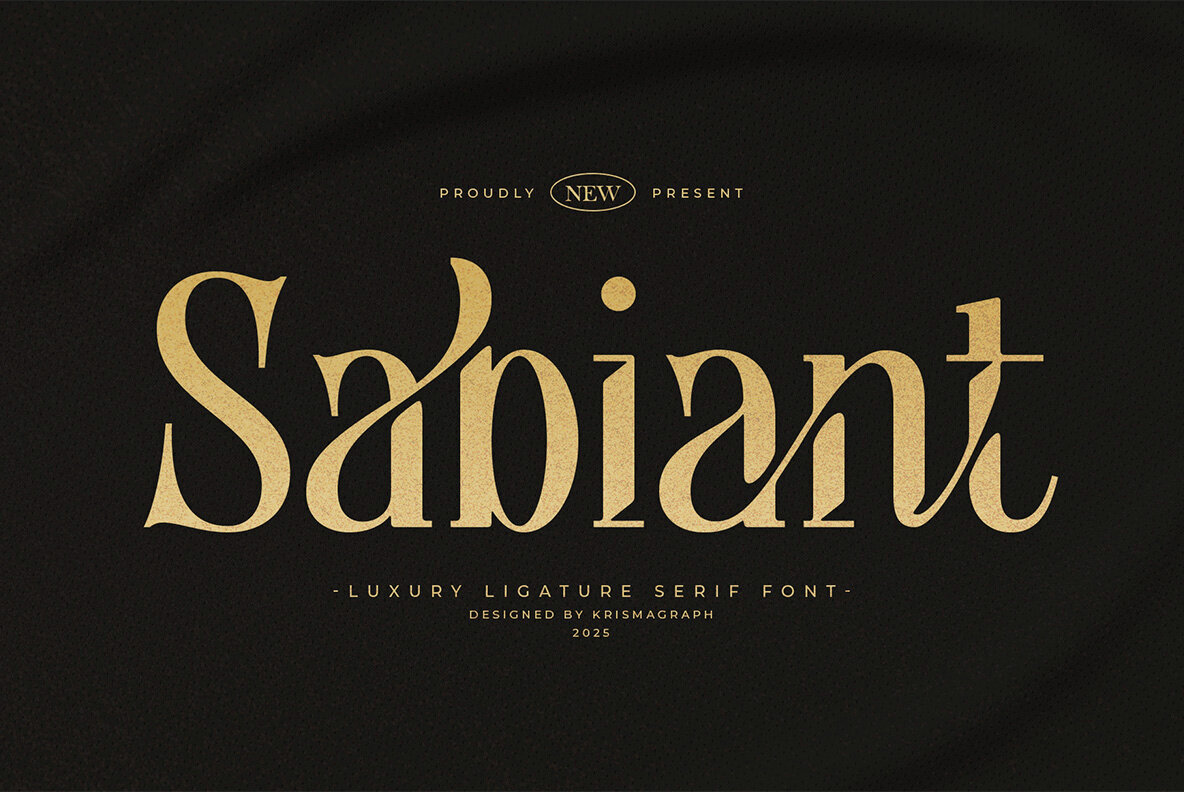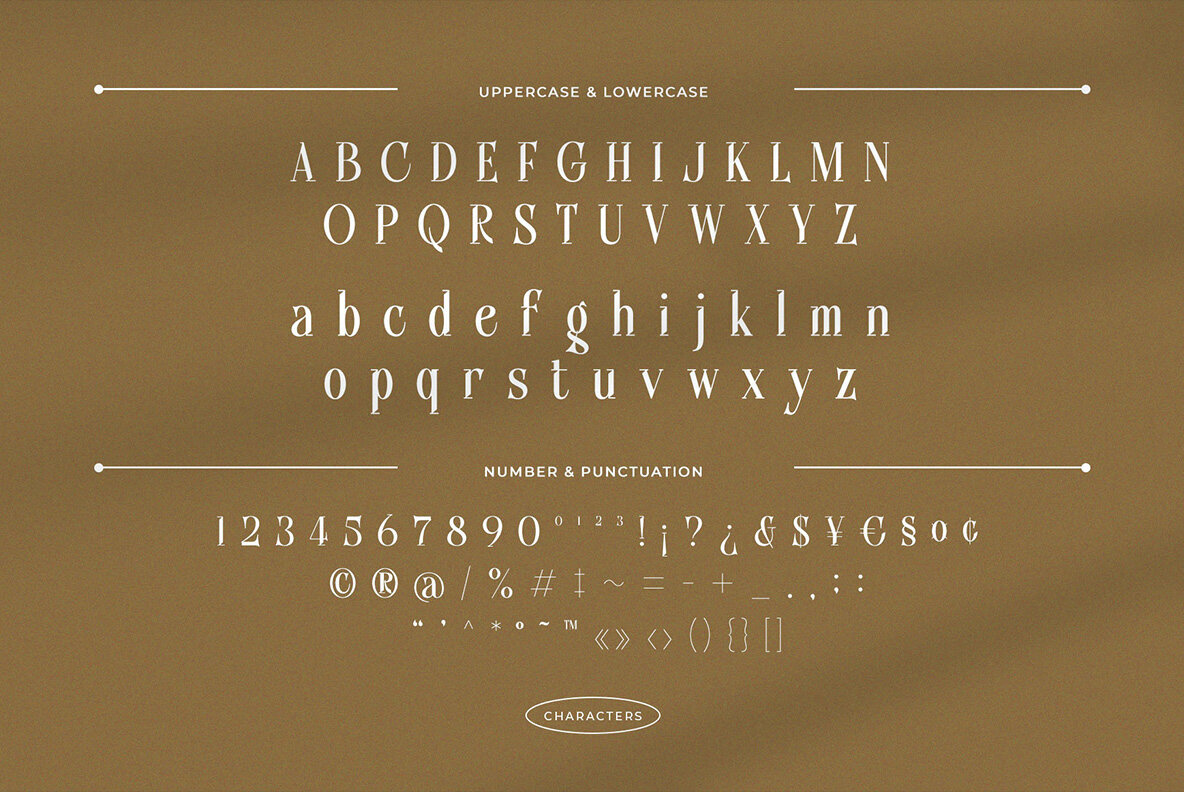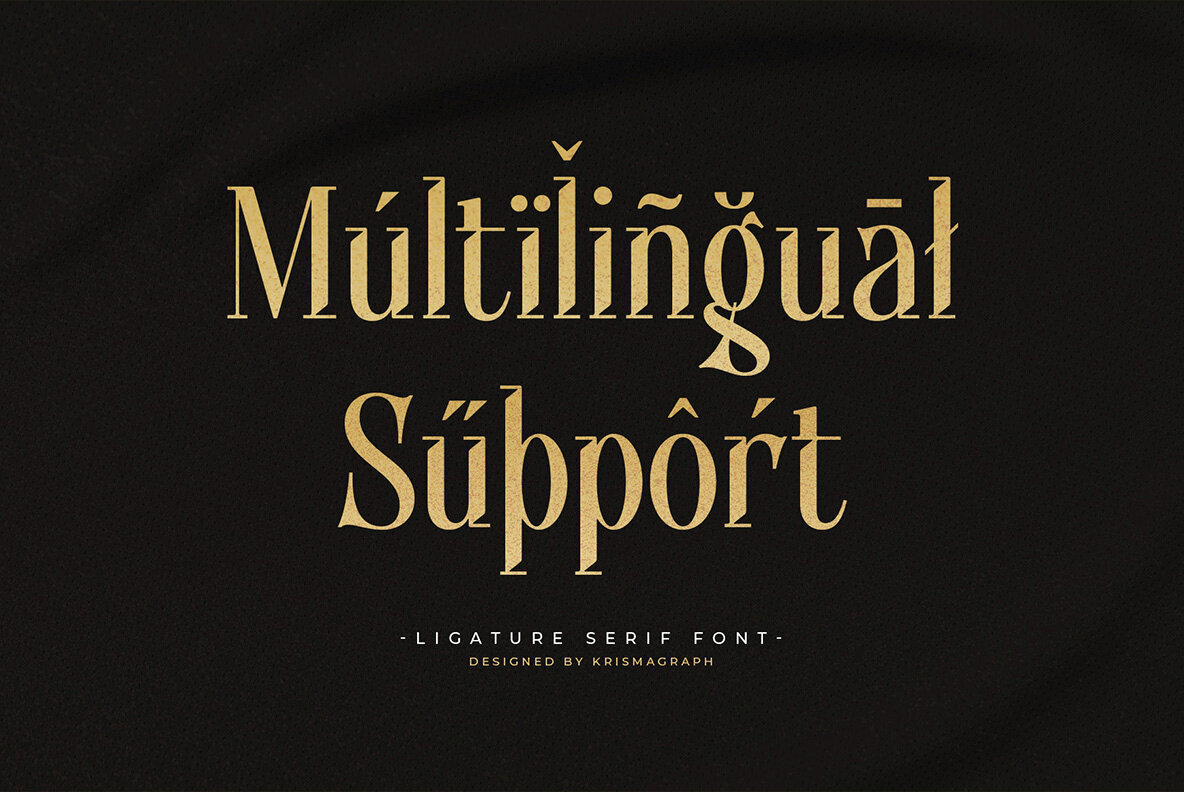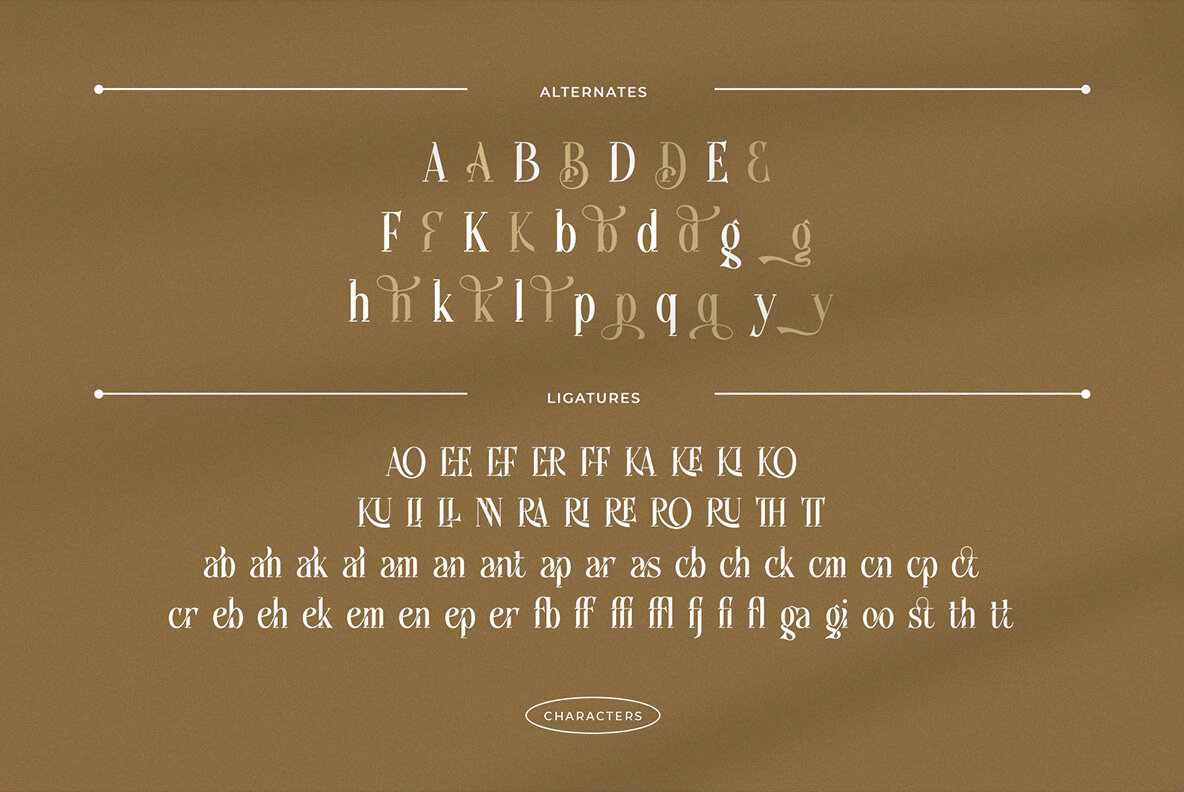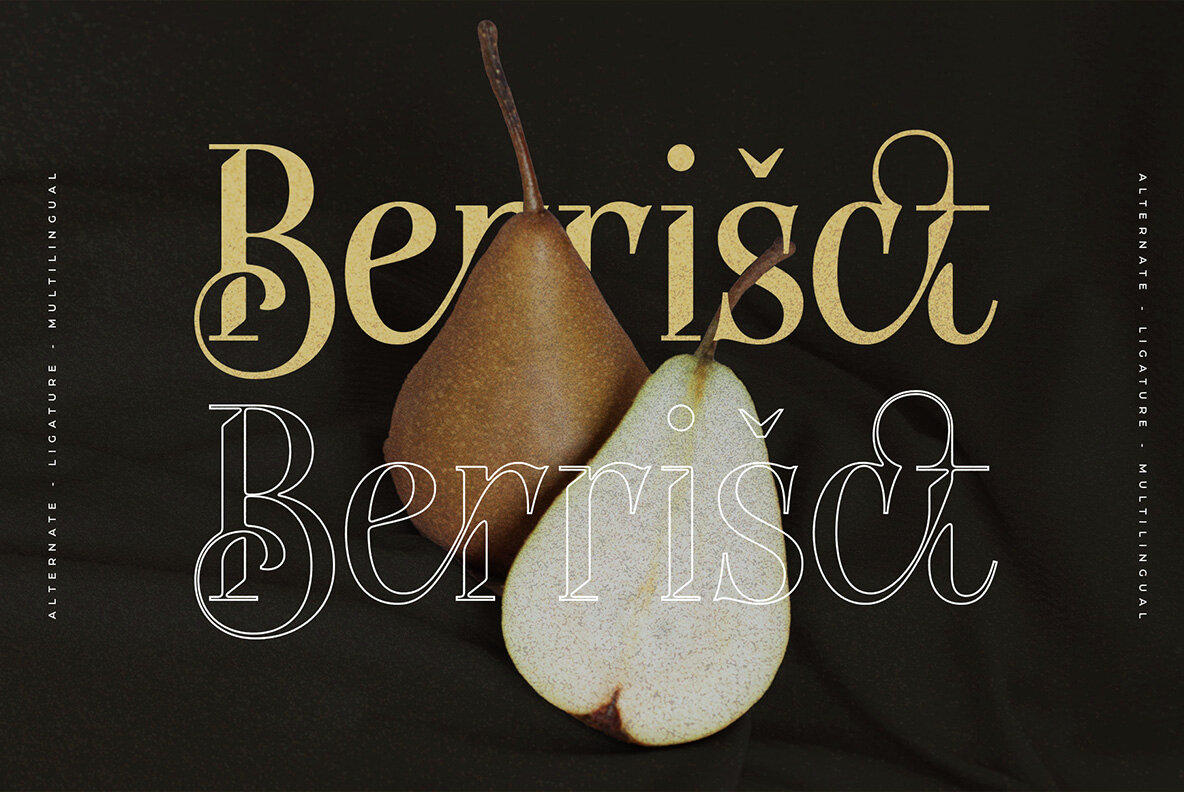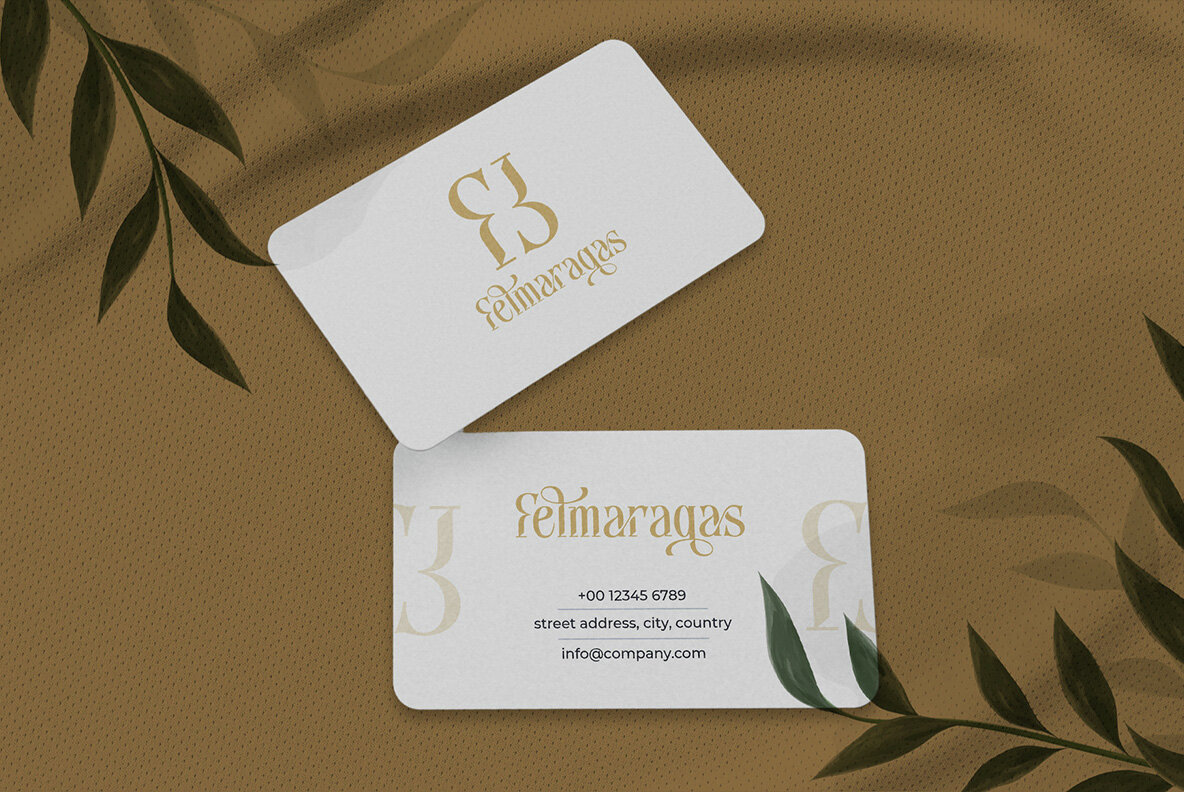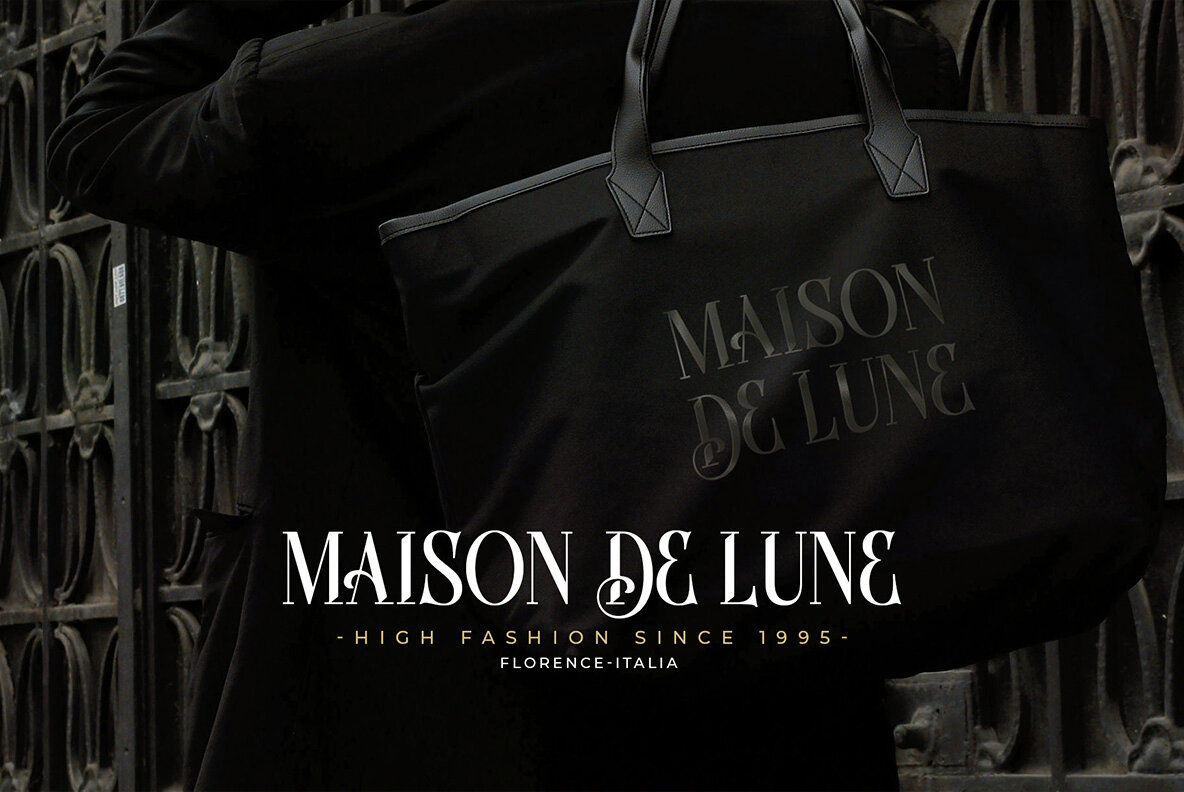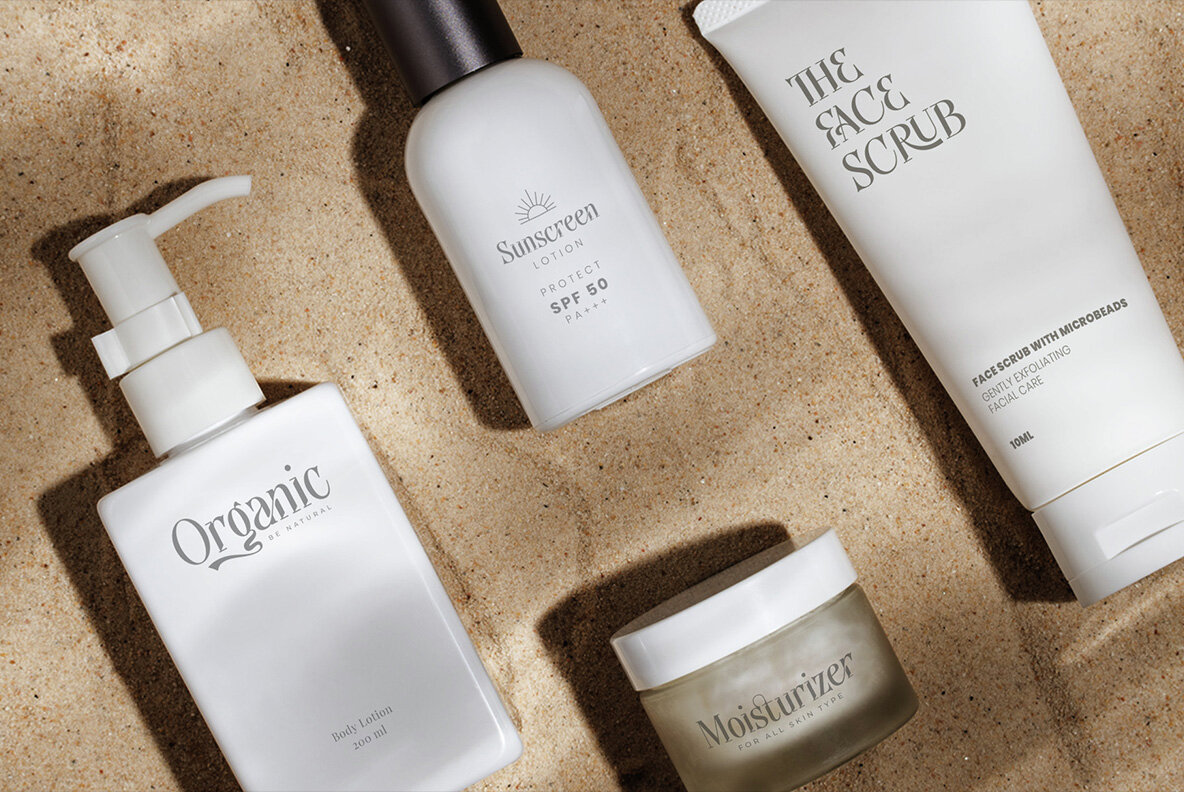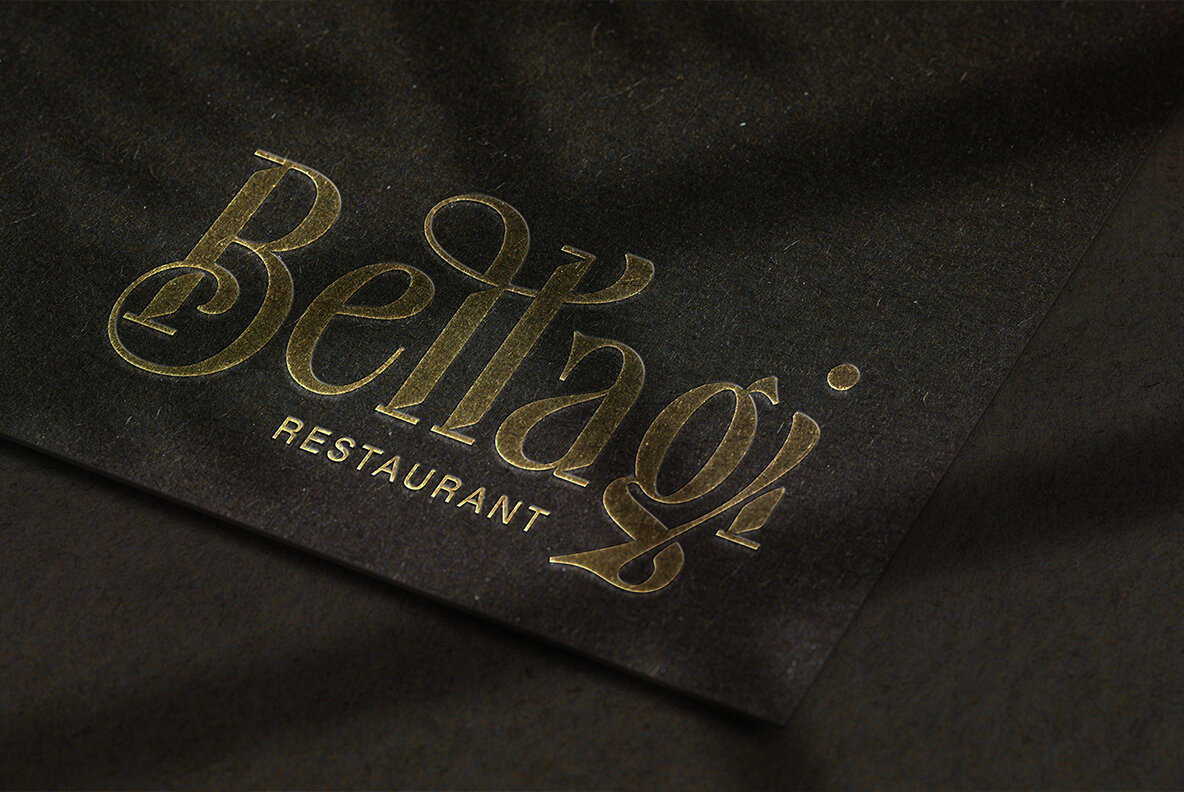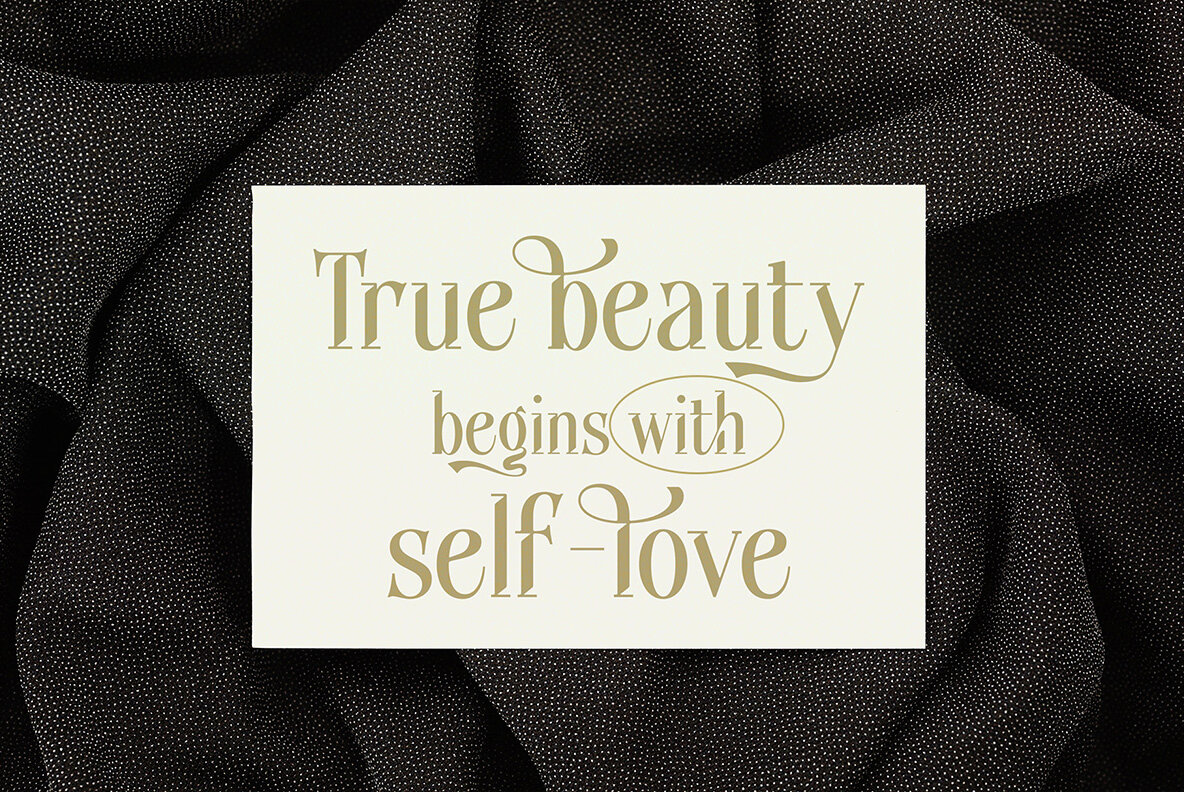
Sabiant Font
Immerse yourself in the luxury of Sabiant, a serif font that combines timeless elegance with contemporary sophistication. Featuring graceful curves, sharp serifs, and exquisite ligature details, Sabiant seamlessly merges classic typography with modern design elements. Ideally suited for branding projects, editorial design, luxury packaging, and premium logos, Sabiant articulates elegance and a distinct fashion-forward personality. The meticulously crafted ligatures and stylish alternates make it a standout choice for creators aiming to leave a lasting impression through iconic visuals and upscale layouts. Whether designing for a luxury fashion label or a boutique brand, Sabiant adds a refined charm and contemporary flair to your work.Sabiant: Elegance Meets Modern Aesthetics